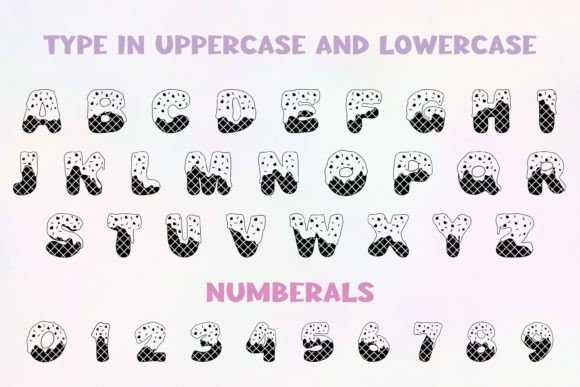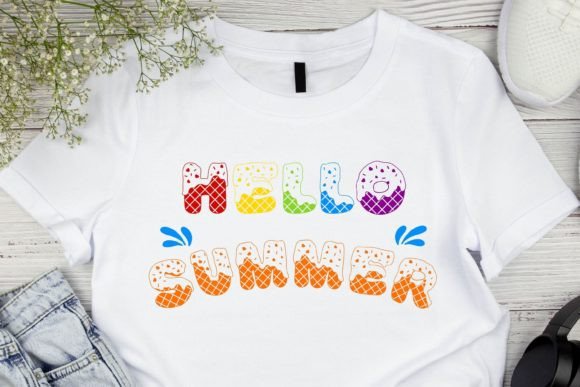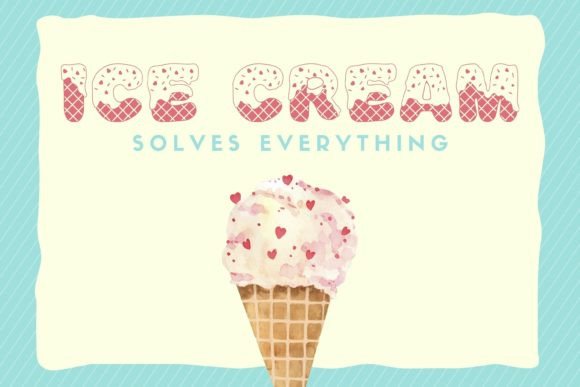
Introduction to Ice Cream Cone Font
Ice Cream Cone is a fun font, perfect for designs that need a playful, cheery accent.
Ice Cream Cone is suitable for book covers, posters, packaging, merchandise, logotypes, and many more .
Key Features of Ice Cream Cone Font